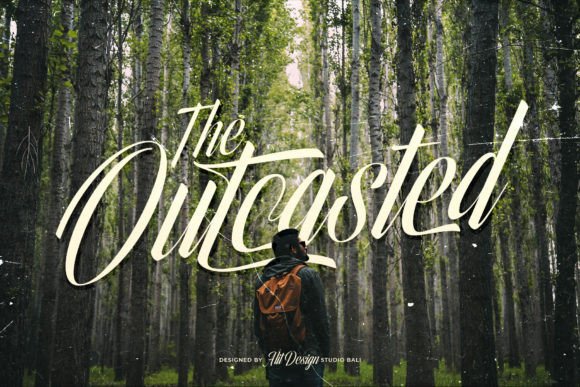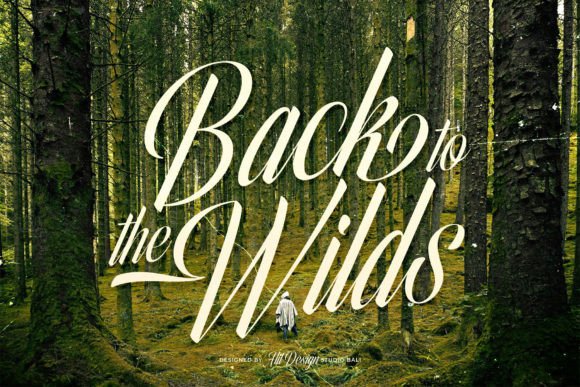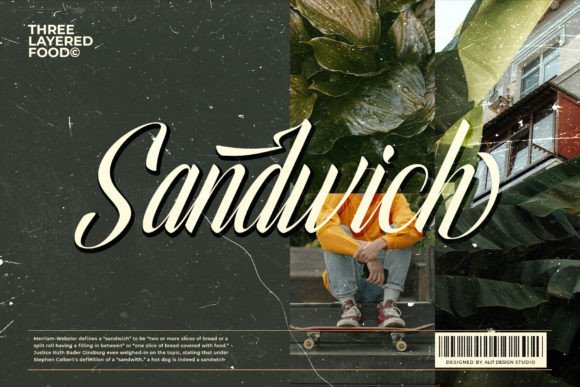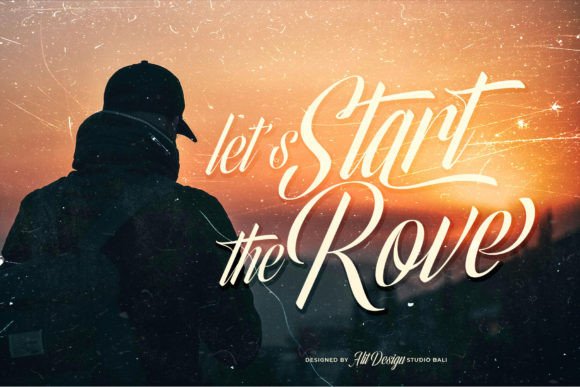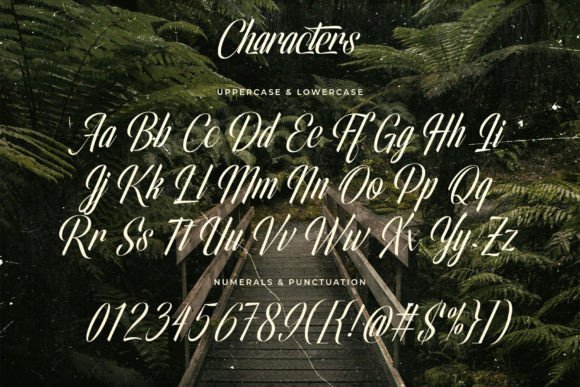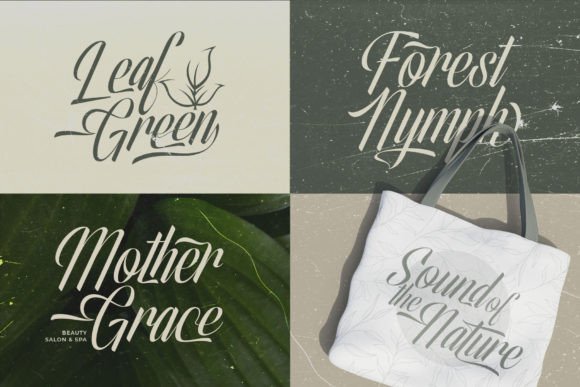
Introduction to Olivelifes Font
Have you ever felt like your designs are stuck in neutral, lacking that extra oomph to take them to the next level? We’ve all been there, staring at a blank canvas, searching for that perfect combination of style and substance. That’s where Olivelifes Font comes in – a game-changing design resource that’s about to revolutionize your creative projects.
With its sleek curves, stunning ligatures, and elegant swashes, Olivelifes Font is the ultimate tool for designers looking to make a bold statement. Whether you’re working on branding and logo design, advertising and promotional materials, or social media graphics and posts, this high-quality font is the perfect companion for your next creative project. And the best part? You can enjoy it with a transparent background, making it easy to integrate into any design.
So why settle for ordinary when you can have Olivelifes Font – a free download that’s packed with 711 characters, offering extensive language support and versatile typographic options. Get ready to take your designs to new heights with this dynamic, speedy, and fierce script font.
Key Features of Olivelifes Font
- High-quality font with a unique and creative design, perfect for any project that requires a touch of elegance and sophistication.
- Transparent background, allowing for seamless integration with any design or image, making it a valuable resource for designers and artists.
- Designed to be scalable, with a resolution of 300 DPI, making it ideal for use in print and digital media, from business cards to billboards.
- Comes in a range of sizes, from 8 to 72 points, allowing for precise control over font size and spacing in your design.
- Perfect for designers, artists, and creatives working on a variety of projects, from logos and branding to typography and visual identity.
Honest Review: Olivelifes Font
I recently stumbled upon the Olivelifes Font, and I’m excited to share my thoughts with you. As a designer, I’m always on the lookout for high-quality design resources that can elevate my creative projects.
One of the standout features of the Olivelifes Font is its high-quality design. The font is clean, modern, and versatile, making it perfect for a wide range of creative projects. ✨ The font is also free to download, which is a huge bonus for designers on a budget.
Here are some of the things that I like about the Olivelifes Font:
Overall, I’m impressed with the Olivelifes Font. It’s a great design resource for designers who want a high-quality font that’s easy to use. While it may have some limitations, it’s definitely worth checking out.
For the best results, use Olivelifes Font in a creative project that requires a unique and stylish font. Experiment with different font sizes, colors, and styles to find the perfect combination for your design. Use the transparent background option to ensure your design looks great on any background.
Olivelifes Font is perfect for designing social media graphics, posters, and flyers. It’s also great for creating brand logos and business cards. With its high-quality design and free download option, Olivelifes Font is a valuable design resource for any creative project.